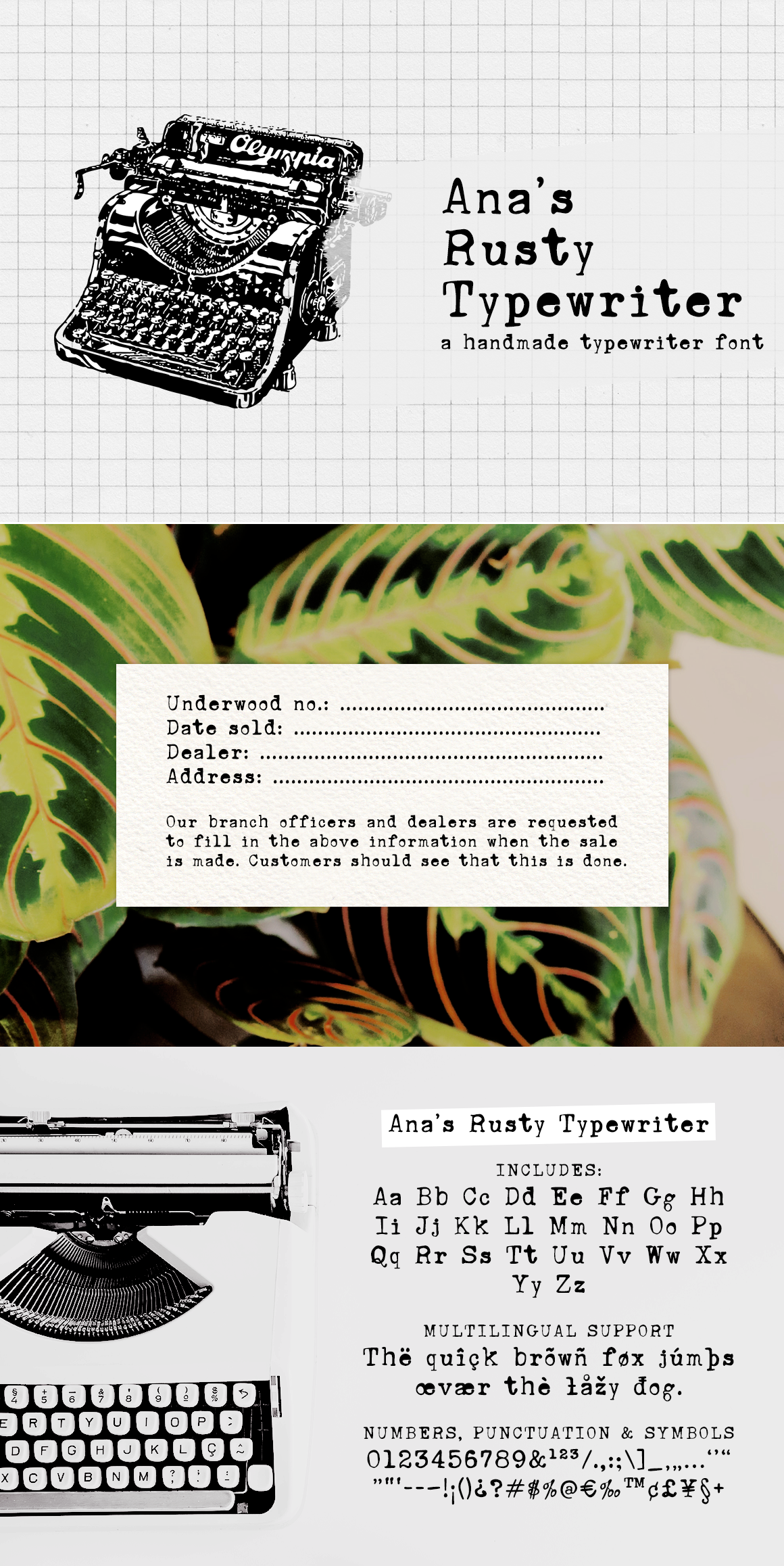
Ana's Rusty Typewriter font
Ana's Rusty Typewriter is a hand-drawn font based on an old Underwood typewriter, including:
- A-Z | a-z | 0-9
- Punctuation & symbols
- Accents